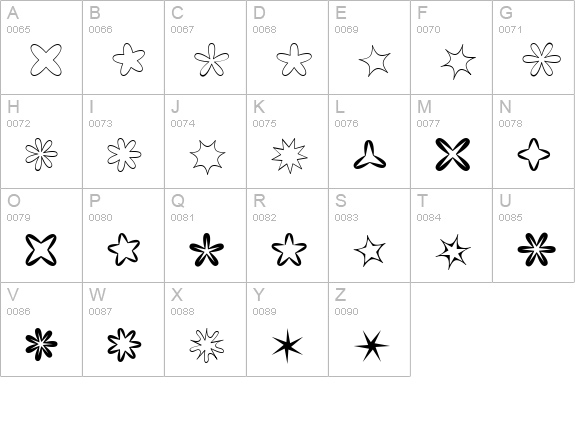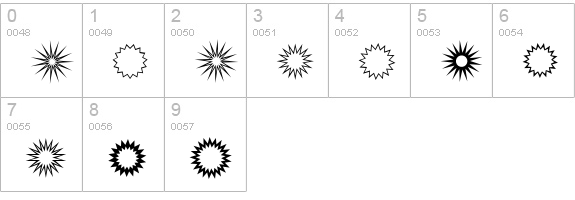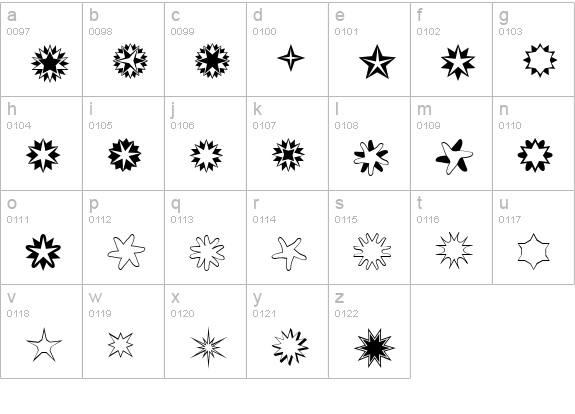
StellaStern Bright Font Details
Introducing StellaStern Bright font, a stunning display typeface that exudes elegance and sophistication. This font is perfect for adding a touch of charm and style to your design projects. With its sleek lines and modern aesthetic, StellaStern Bright font is sure to make a bold statement. The best part? StellaStern Bright font is available for free download at FontsMarket.com. This means you can easily access this beautiful font and use it in your creative endeavors without any cost. Whether you're working on branding, advertising, invitations, or any other design project, StellaStern Bright font will elevate your work to the next level. Don't miss out on the opportunity to enhance your designs with this exquisite font. Download StellaStern Bright today and unleash your creativity!